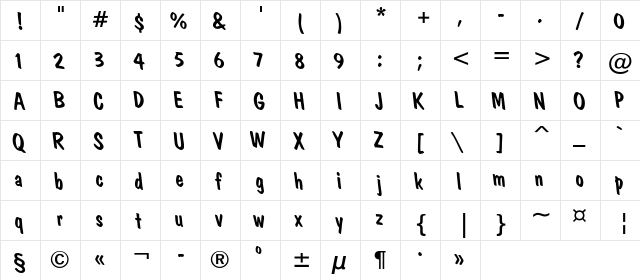
a_DomInoRevObl Regular Font Preview
a_DomInoRevObl Regular
a_DomInoRevObl Regular Font Details
Design Context for a_DomInoRevObl Typeface
a_DomInoRevObl is a composed and adaptable typeface that performs quietly and consistently across a wide range of design contexts.